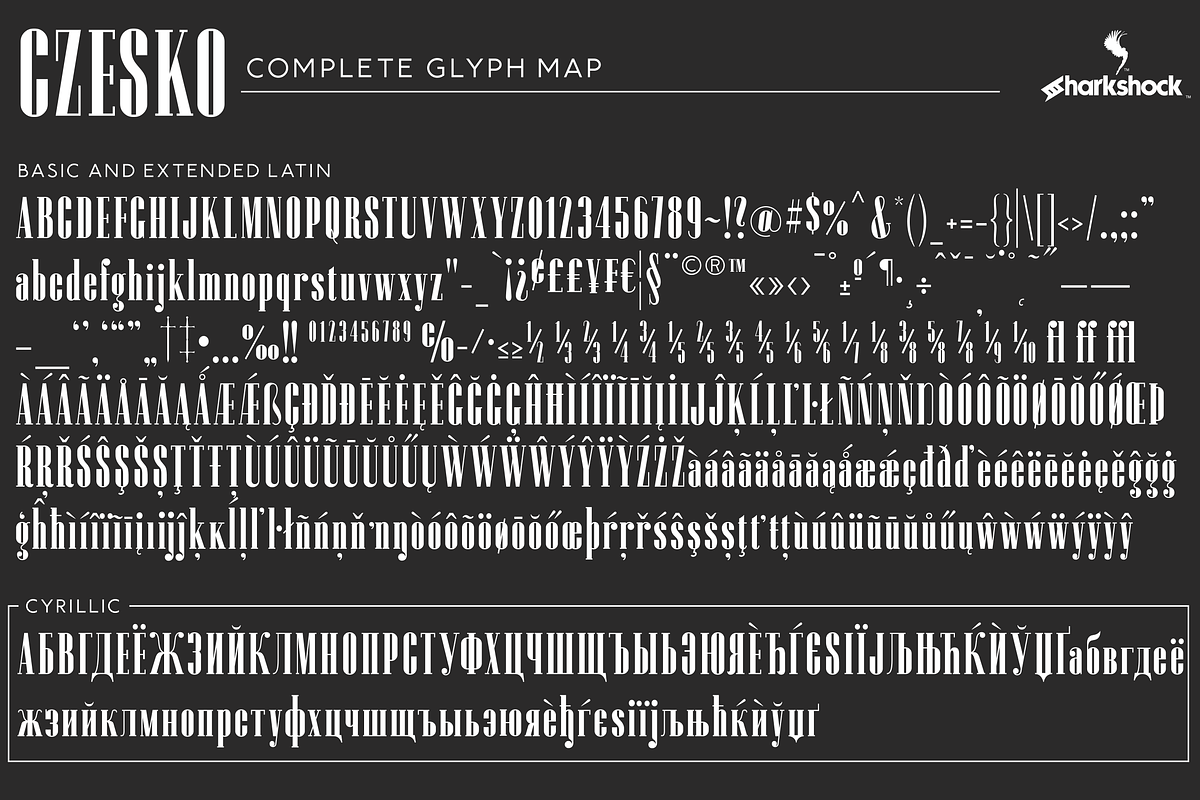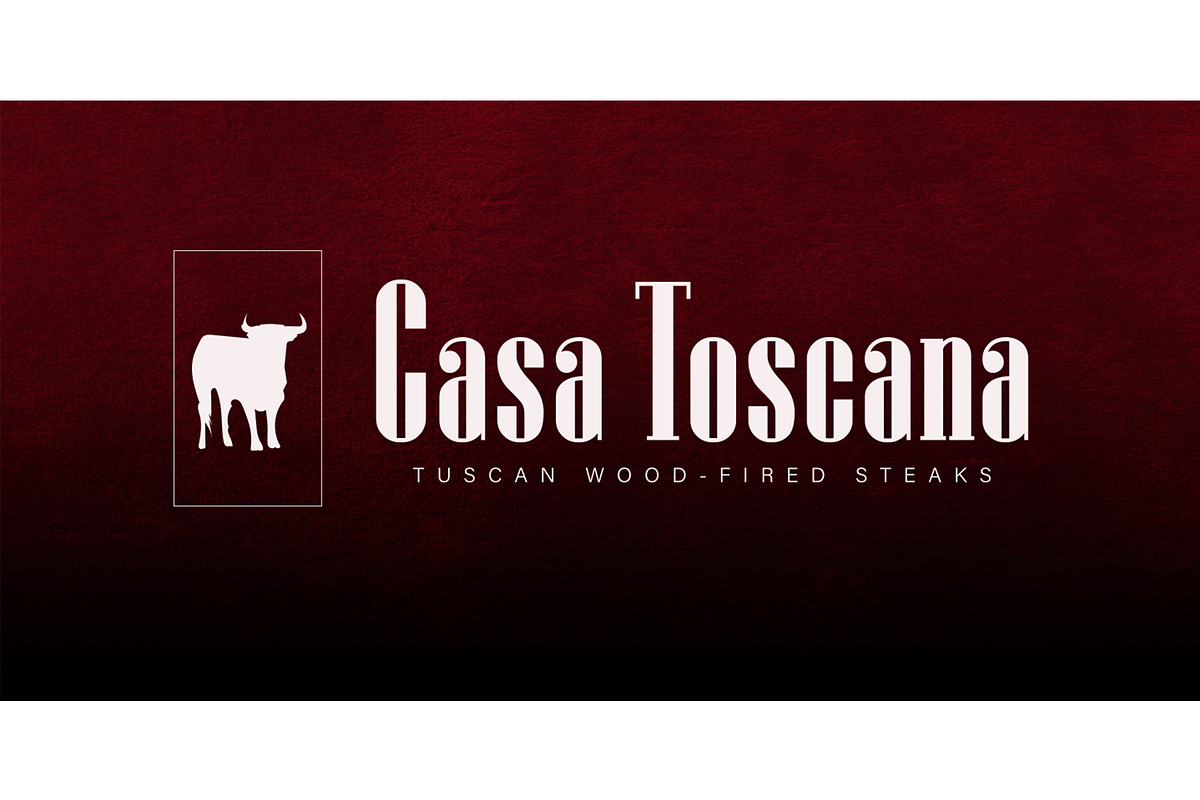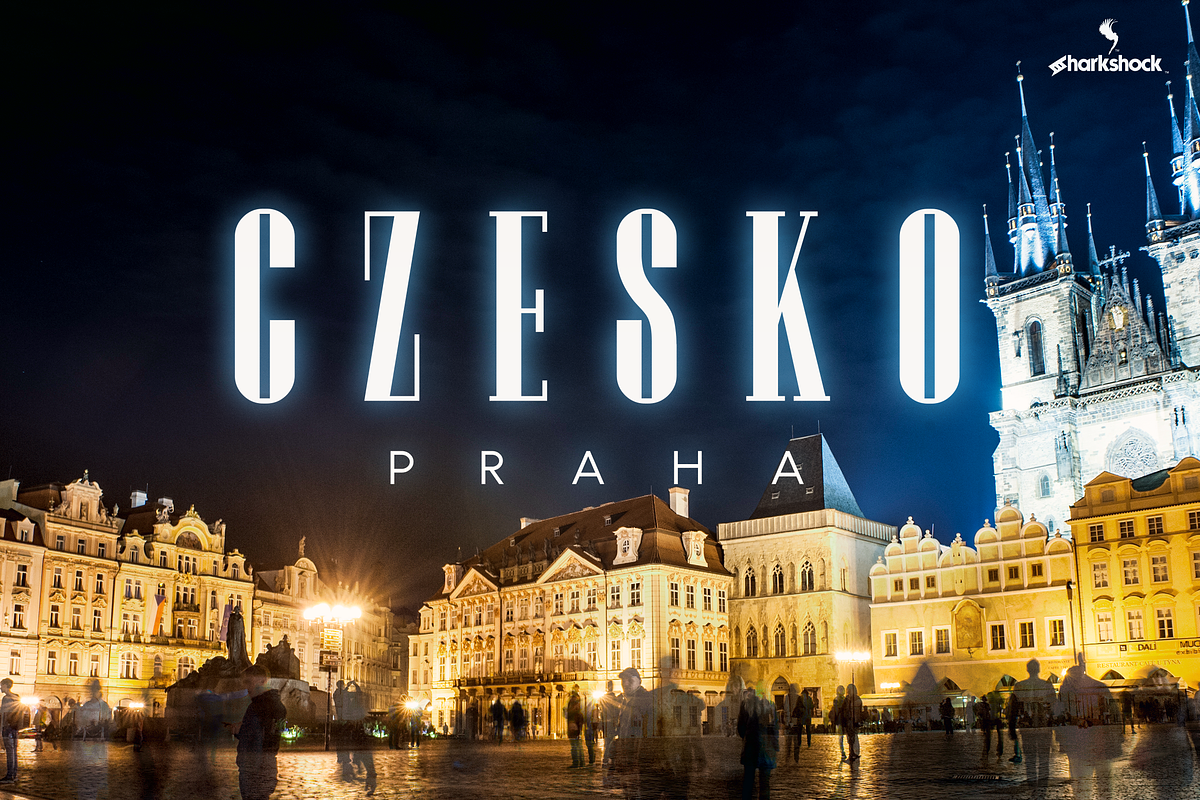
Czesko
Tall, dark, and handsome; Czesko is a fancy display serif with a timeless, yet elegant look. The repetition of key features ensures contrast in line weight to provide high visibility at smaller sizes. Vertical emphasis and tight spacing make it a good choice for areas with limited workspace. Try all caps for a luxury logo or branding in the fashion industry. Other suggested uses include magazines or movie posters. Basic Latin, extended Latin, diacritics, Cyrillic, punctuation, fractions, ligatures, and kerning are all included.